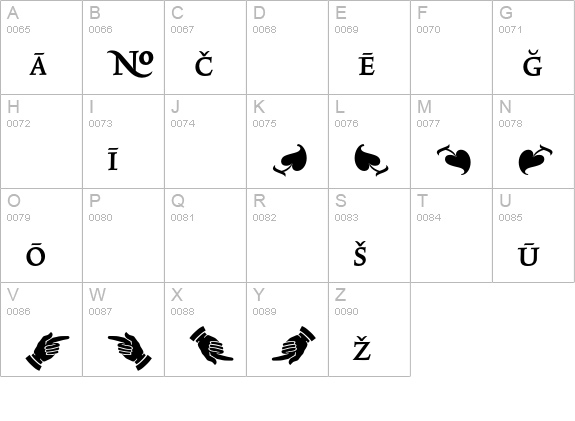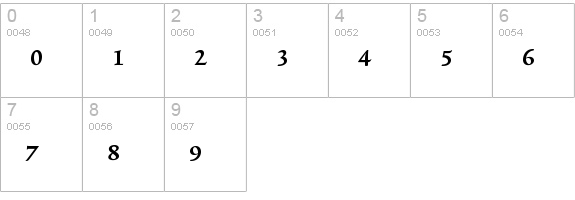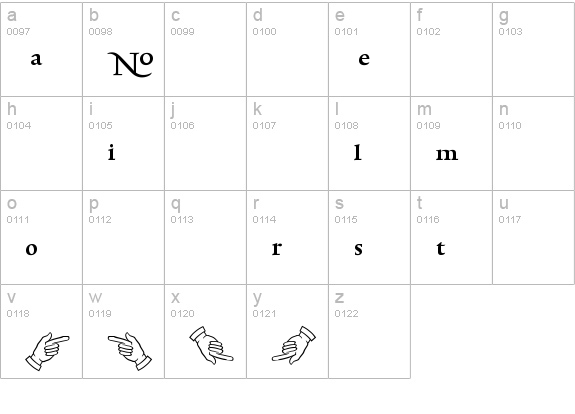
TriniteNo1-MediumWidePi font is a modern and stylish typeface that seamlessly combines elegance with functionality. Its medium-wide design exudes a sense of balance and harmony, making it perfect for a wide range of creative projects. This font features clean and crisp lines, with each character carefully crafted to ensure readability and legibility. The medium weight strikes the perfect balance between boldness and subtlety, making it suitable for both headers and body text. TriniteNo1-MediumWidePi font is not only aesthetically pleasing but also highly versatile. Its timeless design makes it suitable for various design purposes, such as branding, advertising, packaging, and editorial design. Whether you're designing a logo, creating a magazine layout, or crafting a social media post, this font will elevate your project to new heights. One of the best things about TriniteNo1-MediumWidePi font is that it is completely free to download. You can easily access this font at FontsMarket.com, a reputable online platform for all your typography needs. With just a few clicks, you can add this marvelous font to your collection and start using it in your creative endeavors. Don't miss out on the opportunity to enhance your designs with TriniteNo1-MediumWidePi font. Its timeless elegance, versatility, and free availability make it a must-have for any designer or creative professional. Download it today and unlock a world of possibilities for your next project.